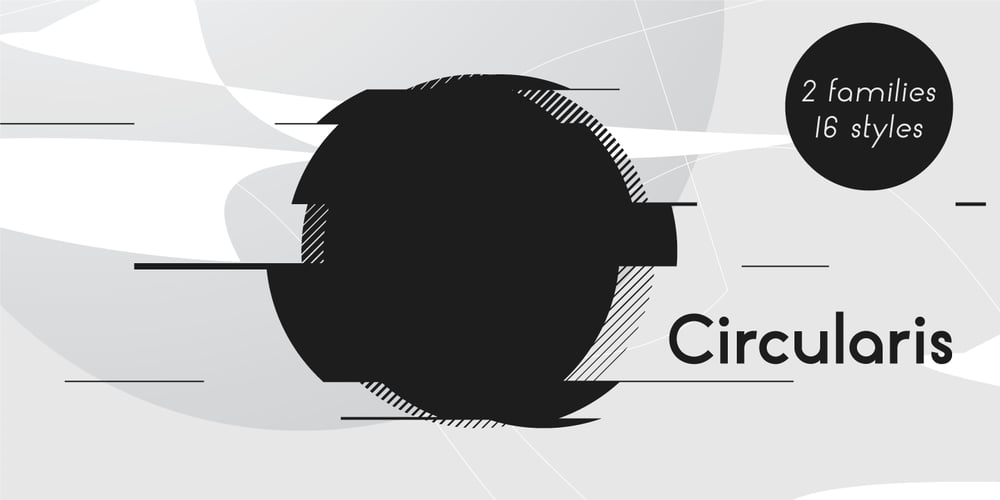
Circularis Font Family was designed by JAF 34 and published by JAF 34. Circularis contains 8 styles and family package options. The Circularis family includes 8 styles and weights – eight uprights with eight italics. Circularis is characterized by the nice and smooth unordinary circle geometric contruction inspired at last century, nice readability, low price and finaly many variation of useful.